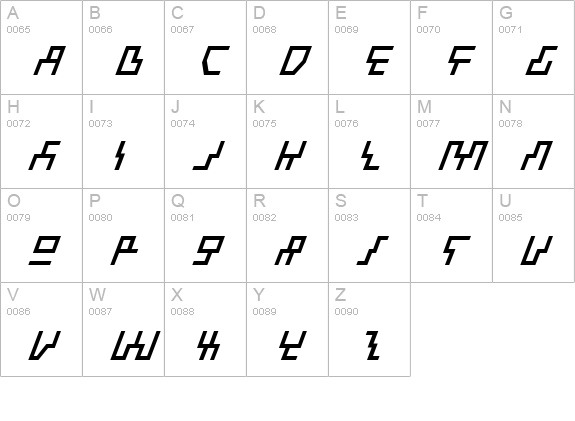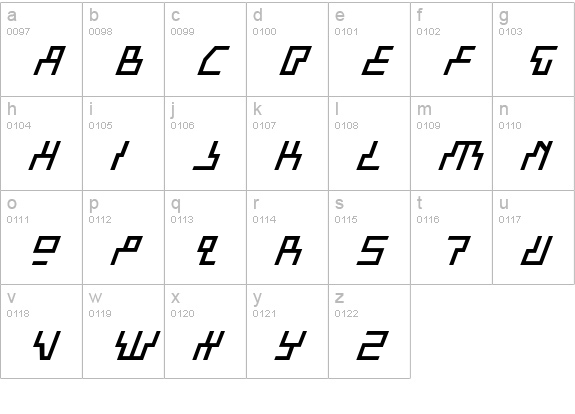
Beam Rider Italic is a distinctive, italic variant in the Beam typeface family \xE2\x80\x94 well suited to design and typography projects.
Introducing Beam Rider Italic font, a modern and stylish typeface perfect for adding a sleek touch to your design projects. The italicized characters of Beam Rider exude a sense of sophistication and dynamism, making it a versatile choice for a wide range of applications. This font features clean lines and a futuristic aesthetic, making it ideal for branding, logos, headlines, and more. The unique design of Beam Rider Italic will make your text stand out and leave a lasting impression on your audience. And the best part? Beam Rider Italic font is available for free download at FontsMarket.com! Don't miss out on the opportunity to enhance your designs with this eye-catching typeface without spending a dime. Download Beam Rider Italic today and elevate your projects with a touch of modern elegance.